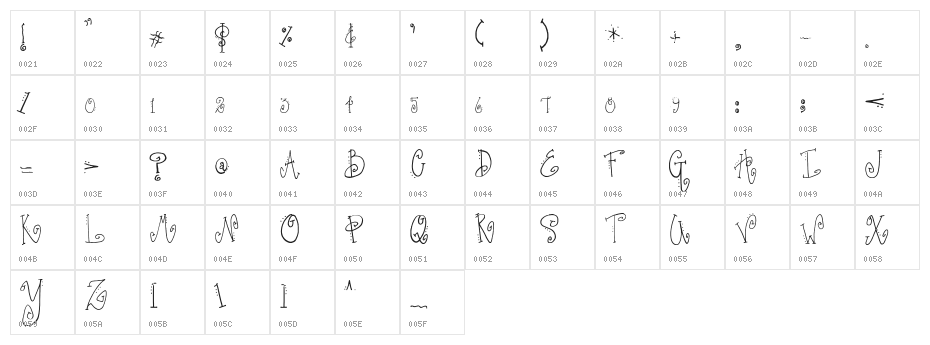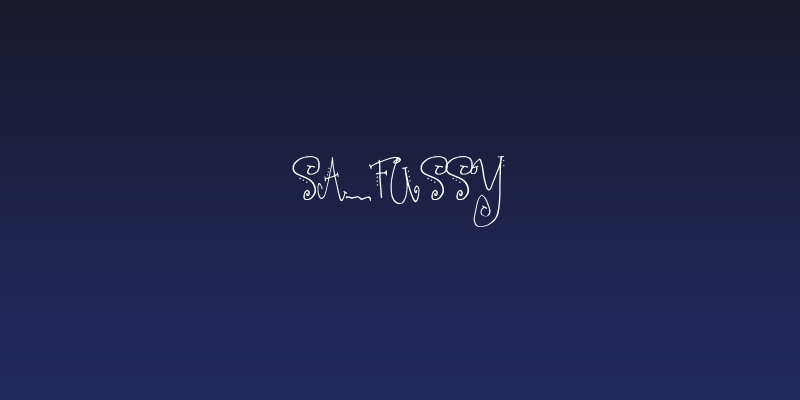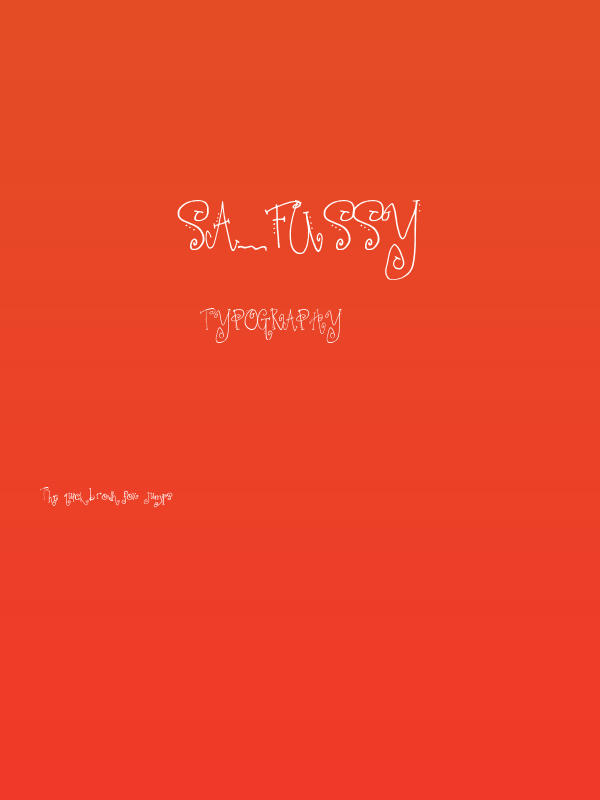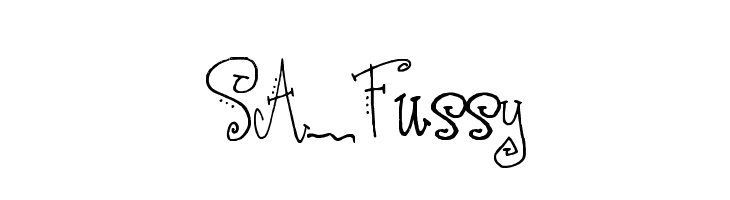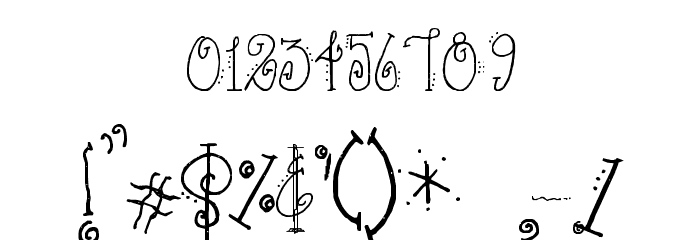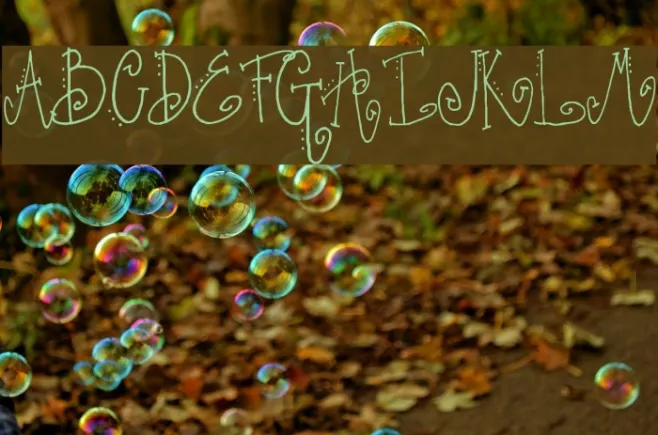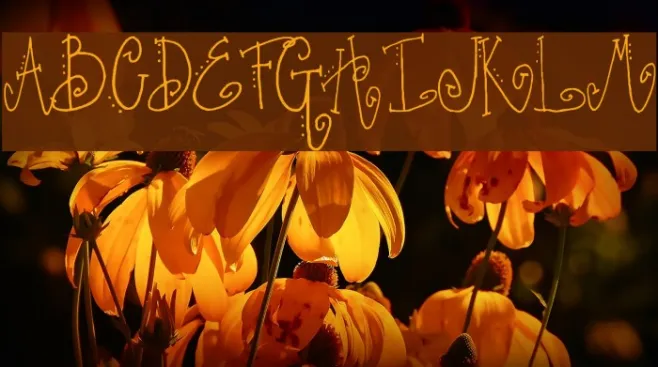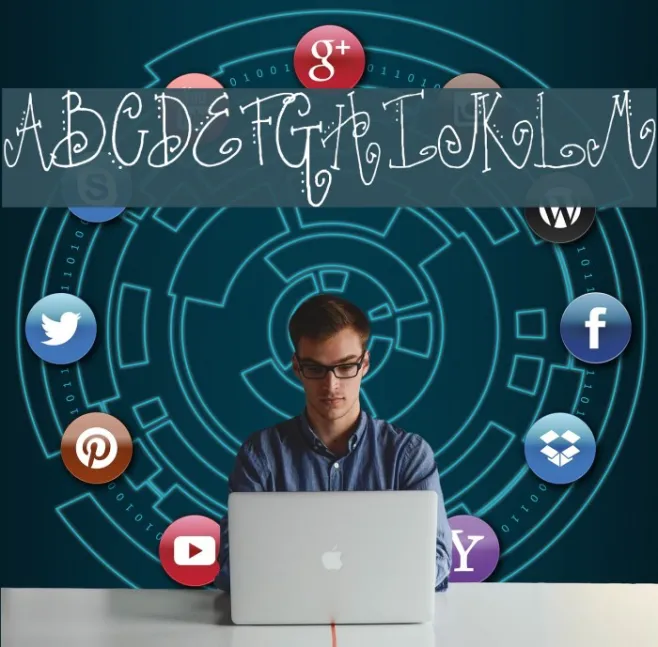
SA_Fussy Font
SA_Fussy Description
This font features an eclectic and whimsical design, characterized by its playful and decorative elements. Each letter is adorned with unique embellishments, such as swirls, dots, and curls, giving it a lively and artistic appearance. The uppercase and lowercase letters maintain a consistent style, with exaggerated curves and loops that add to its charm. Numbers and special characters follow the same decorative theme, making the font suitable for creative and fun projects. The overall design is eye-catching and full of personality, perfect for making a bold statement.
| Proposed Projects | Ideal for children's books, greeting cards, playful branding, and artistic posters. |